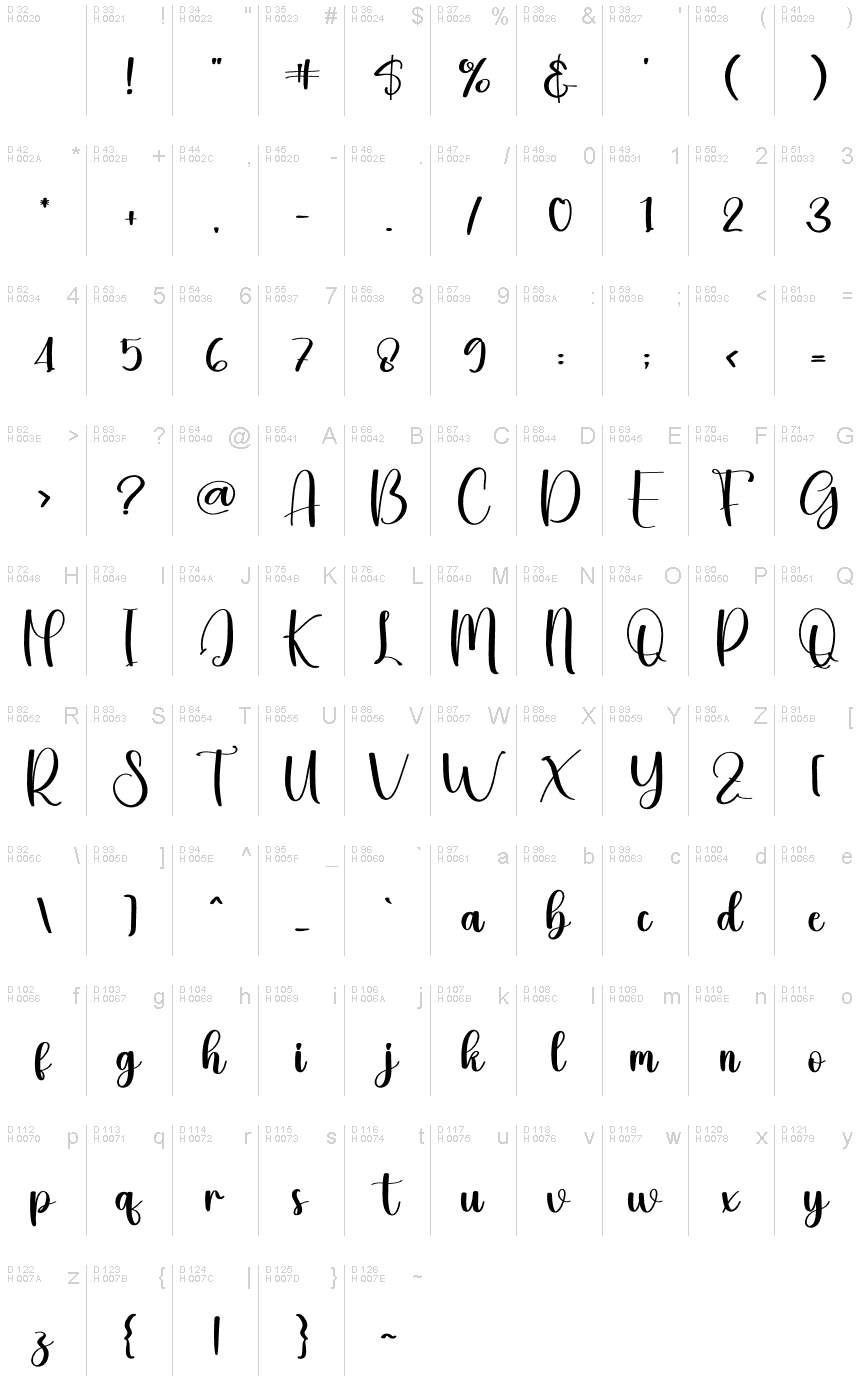
Soungles
Soungles, a handwritten font crafted by FreshtypeINK, captures the essence of personal touch in every curve and line. Its fluid letterforms exude an organic charm that is reminiscent of elegant cursive handwriting, making it an ideal choice for projects that require a bespoke and intimate feel. The playful yet sophisticated style of Soungles lends itself to a wide array of creative endeavors, from wedding invitations to branding materials, offering designers a versatile tool for adding a humanistic appeal to their work.
Embrace Soungles for its ability to infuse your designs with warmth and character, ensuring your creations stand out with their distinct aesthetic allure.